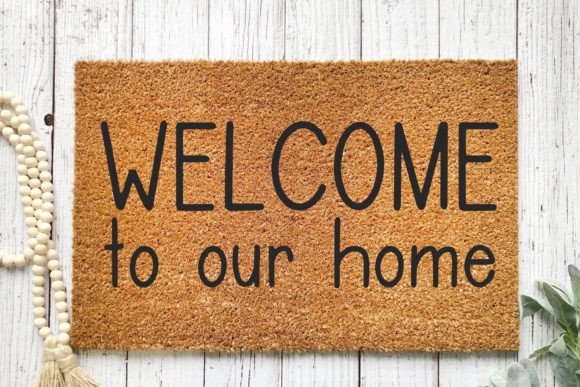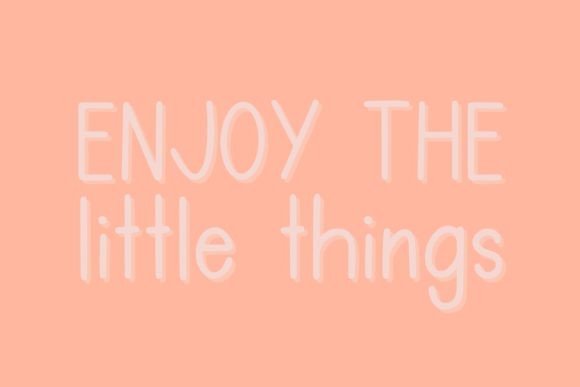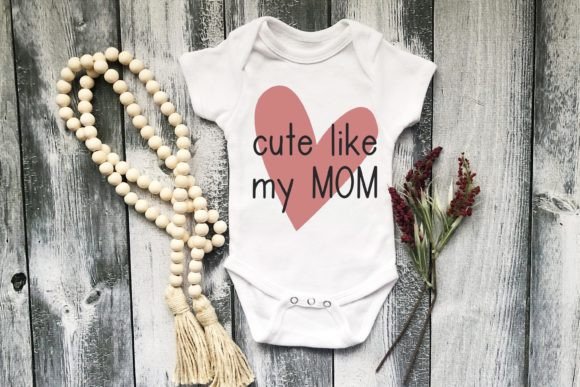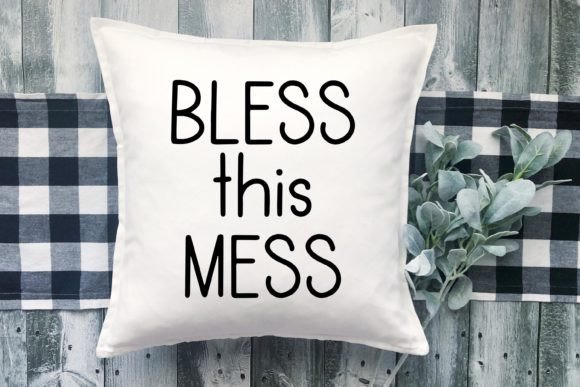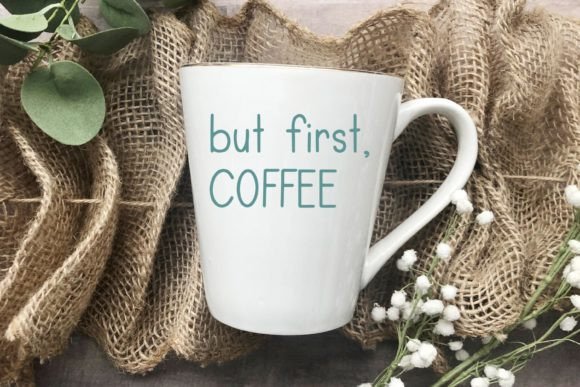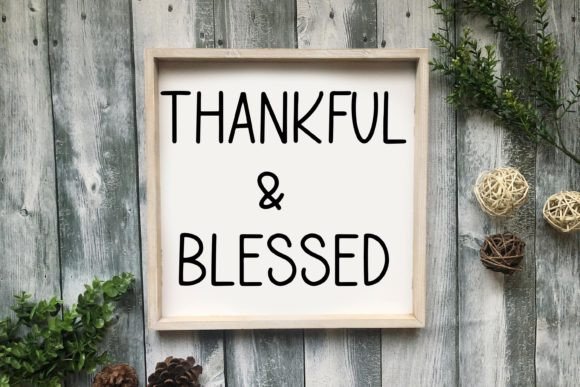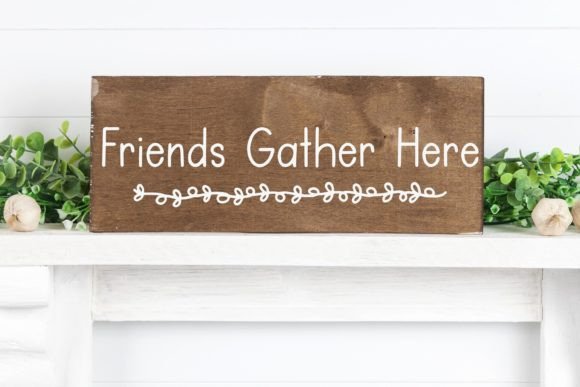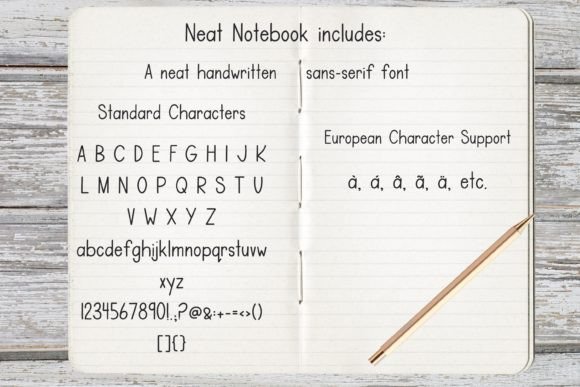
Neat Notebook Font
About Neat Notebook Font
Neat Notebook is a charming and playful handwritten sans-serif font designed to bring a neat and fun vibe to a variety of creative projects. Its versatility makes it perfect for fun logos, greeting cards, t-shirt designs, stickers, social media graphics, and any craft or project that calls for a touch of whimsy.
The charm of Neat Notebook lies in its handwritten style, adding a personal and approachable feel to your designs. The sans-serif nature of the font maintains a clean and organized appearance, making it suitable for a wide range of applications while still infusing a sense of playfulness.
Whether you’re crafting a logo that needs a friendly touch or creating eye-catching designs for t-shirts and stickers, Neat Notebook adapts seamlessly to various design contexts. Its readability and cheerful aesthetic make it a reliable choice for projects that aim to communicate a sense of fun and creativity.
The font’s applicability extends to digital and print media, making it suitable for social media graphics, greeting cards, and other craft projects. Neat Notebook brings a neat yet whimsical quality that can enhance the visual appeal of your creations.
In summary, Neat Notebook is not just a font; it’s a design tool that adds a neat and fun handwritten touch to your projects. Let Neat Notebook be the choice that brings a playful vibe to your logos, greetings, and various creative endeavors, making them stand out with a delightful charm.